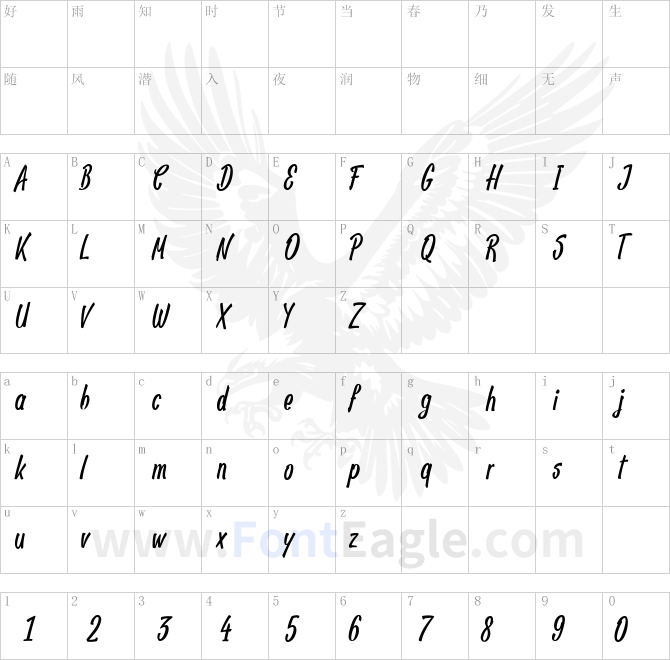
- Font name:Pan Pizza
Pan-Pizza is a great font, widely used in graphic design, single-page menu design, poster design and other fields, and is deeply loved by designers.Pan-Pizza download.